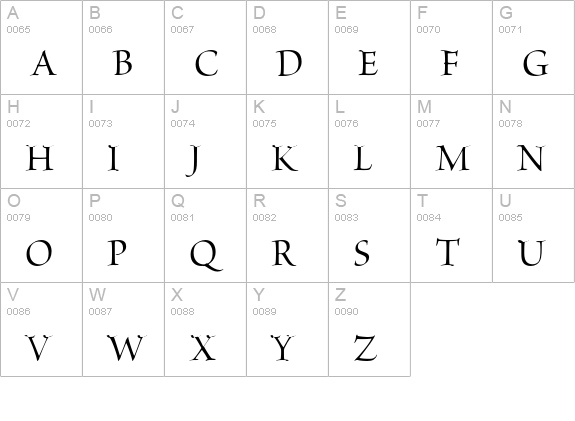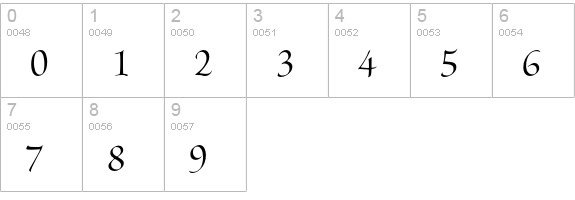
Brioso Pro Medium Display Font Details
Brioso Pro Medium Display is a balanced, medium-weight variant in the Brioso typeface family \xE2\x80\x94 well suited to sub-headlines, navigation, and balanced editorial work.
Brioso Pro Medium Display font exudes elegance and sophistication with its stylish and modern design. Ideal for creating eye-catching headlines and titles, this font strikes the perfect balance between professionalism and creativity. The medium weight adds a touch of boldness while maintaining readability, making it versatile for various design projects. And the best part? Brioso Pro Medium Display font is available for free download at FontsMarket.com. Whether you're working on branding, advertising, or editorial design, this font is sure to elevate your project to the next level. Don't miss out on the opportunity to enhance your designs with this exquisite typeface, now easily accessible for free at FontsMarket.com.